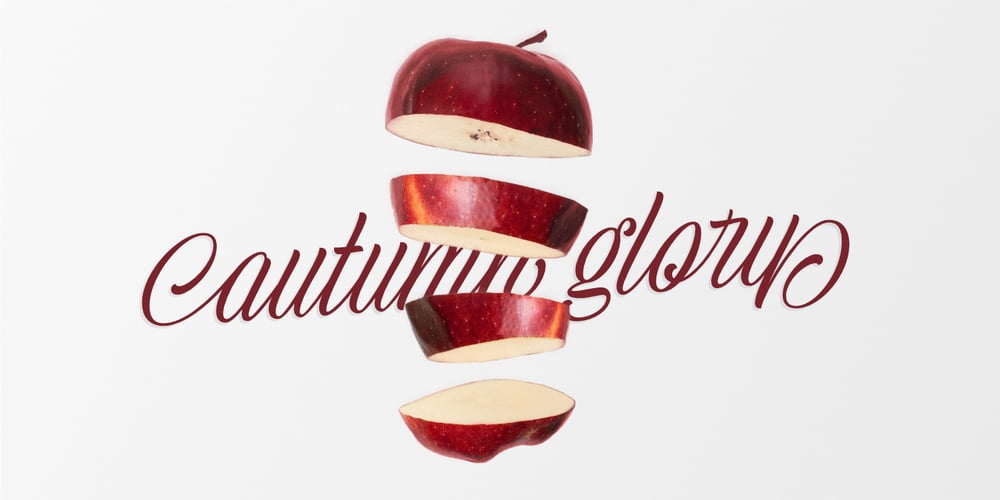
Nagamaki Font Family was designed by Ivana Maric and published by LePunktNoir. Nagamaki contains 1 styles and family package options. Multilingual, semi-connected display brush script, Nagamaki is perfect for logos, food packaging, menus, labels, apparel, advertising, cards, branding and more. Nagamaki comes with a set of lowercase swash alternates, ligatures and ending terminals. Inspired by my writing created with Pentel Touch Brush Pen and polished into clean forms, it’s stroke endings on letters like l or t reminded me of Japanese Katana swords. After researching the swords I named the font Nagamaki, which is a type of Katana sword with an extra long handle. It works well in smaller sizes and for more text but it shines in medium to large point sizes. You can access all the OpenType features through Adobe, Affinity and other similar software. With a couple of defining features like double story lowercase g and alternate lowercase r it makes a perfect choice for giving a little character to your designs while keeping everything nice and neat.